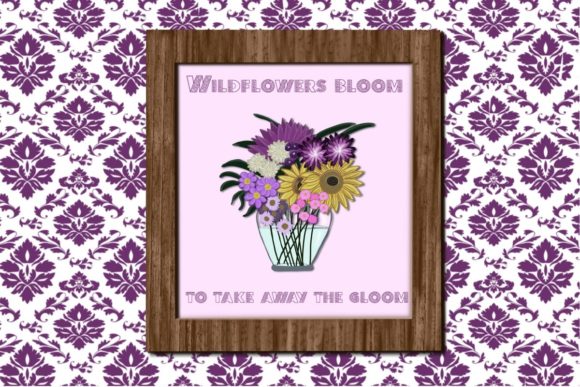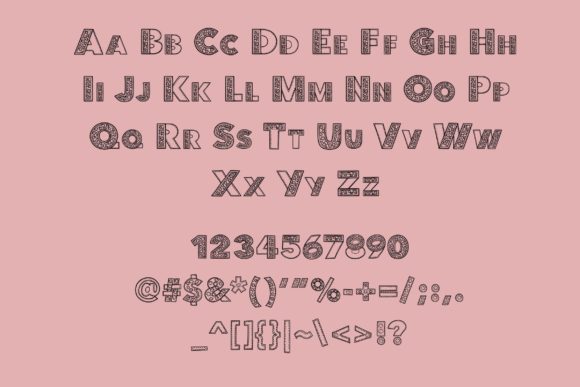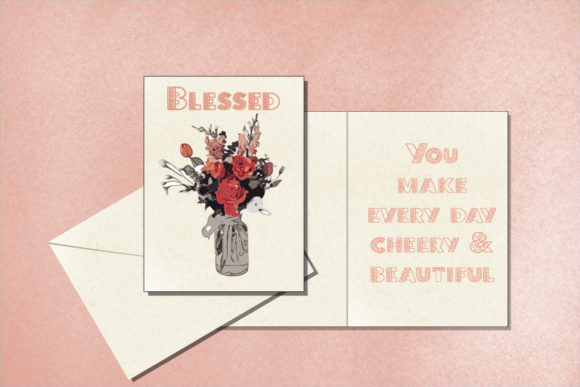
Introducing Floral Stitch Block Font: Elevate Your Designs with Whimsy and Charm
Are you tired of using the same old fonts in your designs? Look no further! Floral Stitch Block Font is here to revolutionize your creative projects with its incredibly cool, dreamy, and genuine decorative style. This whimsical and beautiful font is sure to brighten up each of your designs, adding a touch of elegance and sophistication.
What is Floral Stitch Block Font?
Floral Stitch Block Font is a unique and eye-catching decorative font that features intricate floral patterns and stitch-like details. Its distinctive style is reminiscent of traditional embroidery and patchwork, making it perfect for crafters, designers, and anyone looking to add a touch of handmade charm to their work.
Key Features of Floral Stitch Block Font
- Whimsical and decorative: Floral Stitch Block Font boasts a playful and imaginative design that’s sure to capture attention.
- Incredibly versatile: Use it for a wide range of projects, from digital designs to print materials, and even handmade crafts.
- Elegant and sophisticated: Add a touch of refinement to your work with this beautiful and intricate font.
Floral Stitch Block Font is an ideal choice for designers and crafters looking to add a unique and personal touch to their work. Whether you’re creating:
- Digital designs: Use Floral Stitch Block Font to create stunning social media graphics, blog headers, and more.
- Print materials: Add a touch of elegance to your business cards, brochures, and flyers.
- Handmade crafts: Use Floral Stitch Block Font to create beautiful and personalized gifts, such as handmade cards and scrapbook pages.
Tips and Tricks for Working with Floral Stitch Block Font
To get the most out of Floral Stitch Block Font, try the following:
- Mix and match: Combine Floral Stitch Block Font with other fonts and design elements to create a unique and eye-catching look.
- Experiment with colors: Try out different colors and textures to add depth and interest to your designs.
- Keep it simple: Don’t be afraid to use Floral Stitch Block Font in its own – its intricate details and patterns can be stunning on their own.
Floral Stitch Block Font is a game-changer for designers and crafters looking to add a touch of whimsy and charm to their work. With its intricate floral patterns and stitch-like details, this beautiful font is sure to brighten up each of your designs. So why wait? Download Floral Stitch Block Font today and start creating stunning, one-of-a-kind projects that showcase your unique style and creativity!